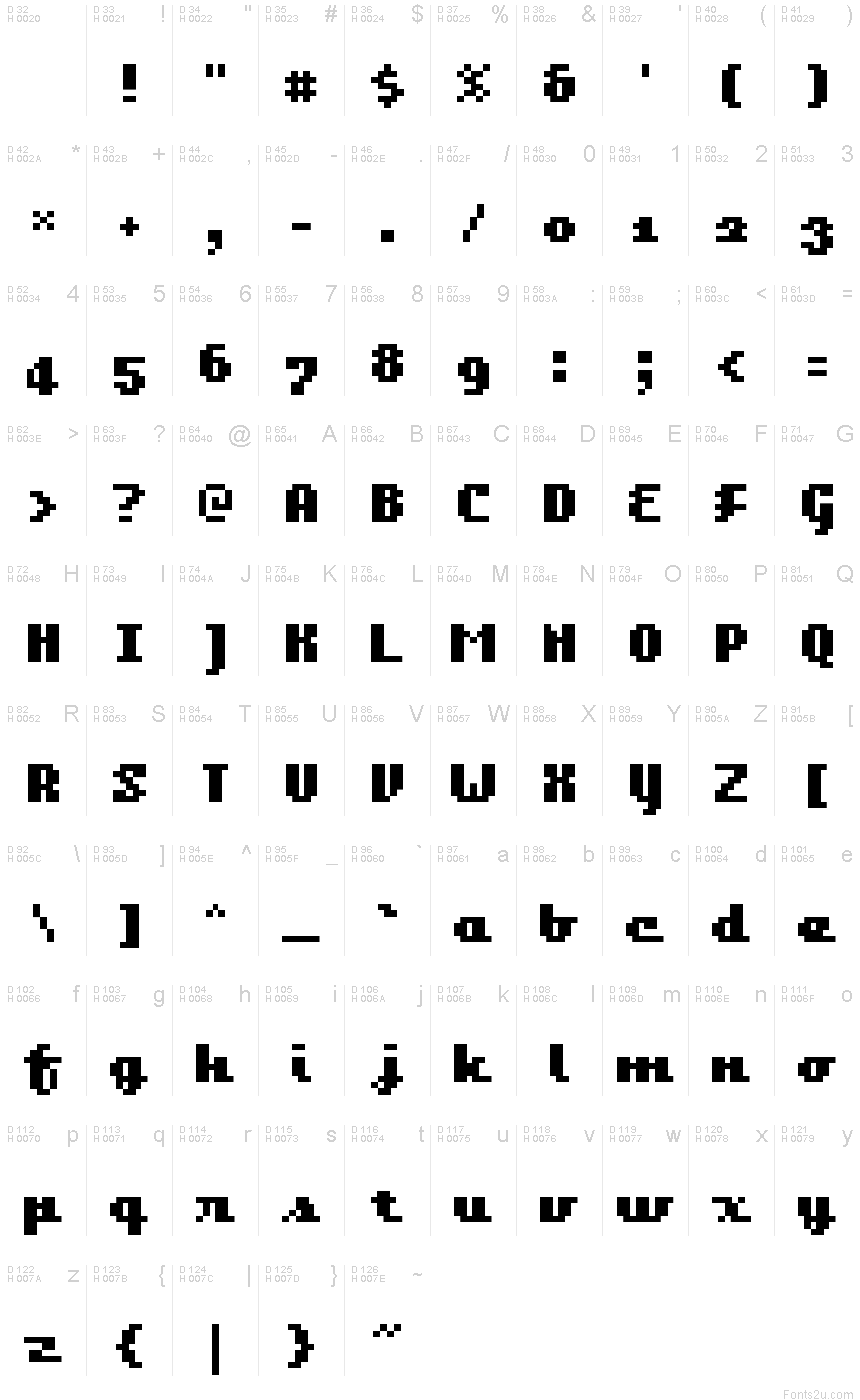
Bangalore
Bangalore font by Yuji Adachi is a free pixelated bitmap typeface. It stacks chunky square modules into a tight, low-res rhythm that feels straight out of an early console screen. The letters sit like solid blocks of ink with carved-out counters, giving words a compact, heavy presence that still reads cleanly at small sizes.
Using Bangalore, this free font shines on retro game titles, arcade-style UIs, glitchy posters, demo-scene graphics, stream overlays, and bold logo wordmarks. Its consistent grid and even weight make it easy to animate or color-block for 8‑bit gradients. Try pairing Bangalore with a light, neutral sans serif for body copy, and keep this bitmap typeface at medium to large sizes so its crisp pixel geometry stays sharp and intentional.